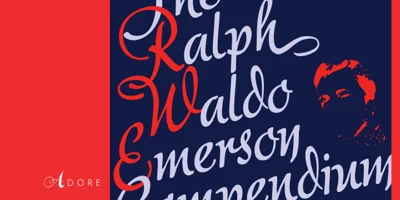
Adore Font
This romantic typeface excels in luxury beauty brands, wedding invitation design, Valentine's Day campaigns, jewelry packaging, romantic restaurant menus, love-themed greeting cards, intimate boutique signage, and affectionate communications. Its loving character makes it perfect for projects expressing deep affection and romantic sophistication.
Adore Font generates excitement through its passionate elegance that captures the tender beauty of deep love and romantic devotion. The font's graceful curves and heart-inspired letterforms create an atmosphere of intimate sophistication that resonates with audiences seeking meaningful connections and romantic experiences. Its lovingly crafted character variations deliver affection-filled readability while maintaining distinctive romantic personality that reflects the transformative power of love and the eternal appeal of romantic expression in design.
The Adore Font family includes multiple love-inspired variations such as regular, light, bold, script, and heart styles. Each family member maintains the distinctive romantic aesthetic while offering different levels of affectionate sophistication for various love-themed applications. This passionate collection allows designers to create tender compositions that celebrate the full spectrum of romantic experiences from gentle whispers of love to bold declarations of devotion.
The Adore Font offers designers access to premium romantic typography that brings authentic love expression to any project. Its affectionate character and romantic appeal make it ideal for creating memorable love brands and engaging intimate communications that touch hearts. Whether developing wedding service identities, designing romantic materials, or crafting love-focused marketing campaigns, this font provides the romantic authenticity and passionate elegance essential for connecting with audiences who cherish love, celebrate romance, and adore the beautiful expressions of affection that make life meaningful and relationships extraordinary.